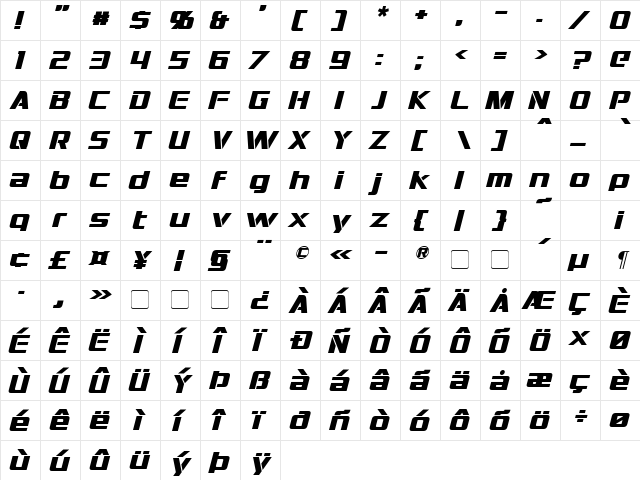
Interceptor Italic
Design Context for Interceptor Typeface
Interceptor offers clean, dependable letterforms without strong stylistic allegiance, making it a practical choice for designers who need flexibility. The dynamic lean of this cut emphasises speed and emphasis in any layout.
Pro Tip: Use Interceptor for emphasis, pull quotes, and subheadings where its slanted energy can add rhythm to the layout.